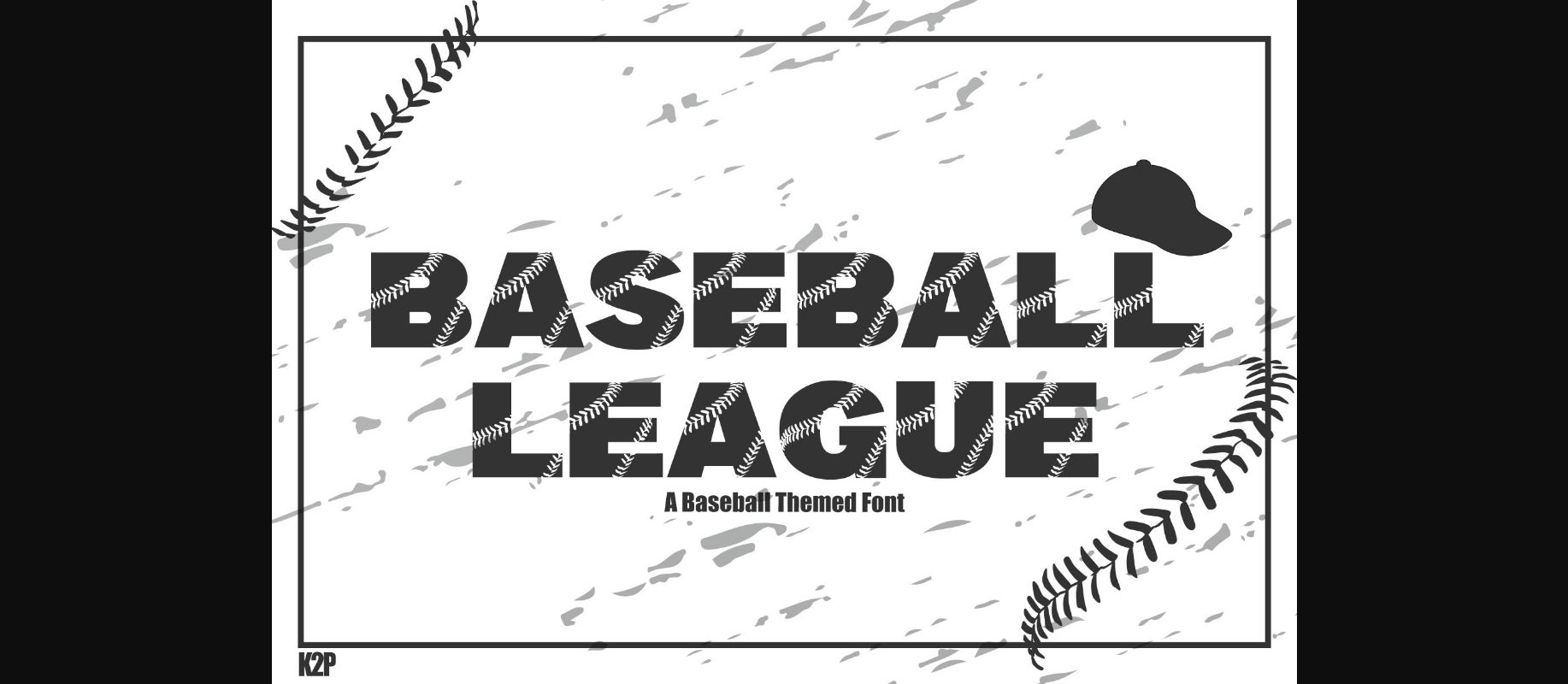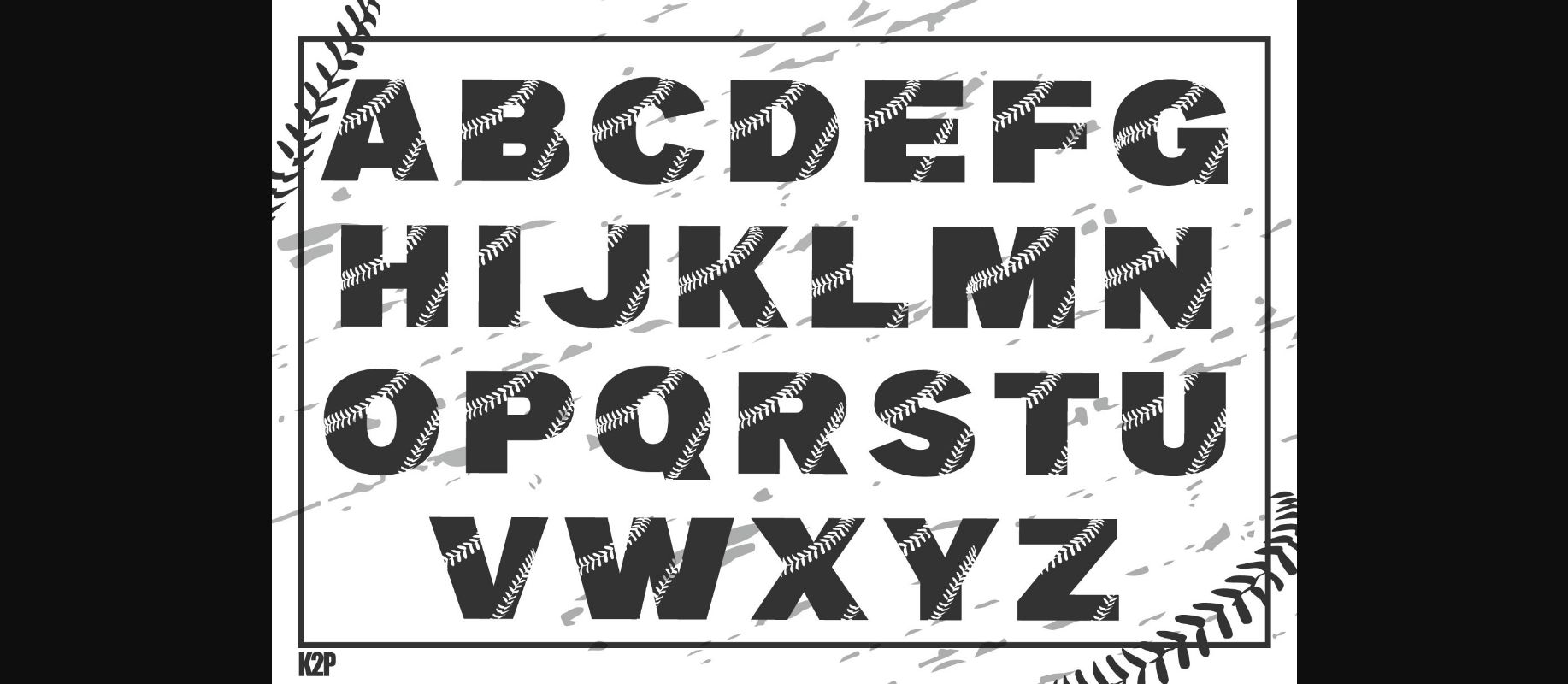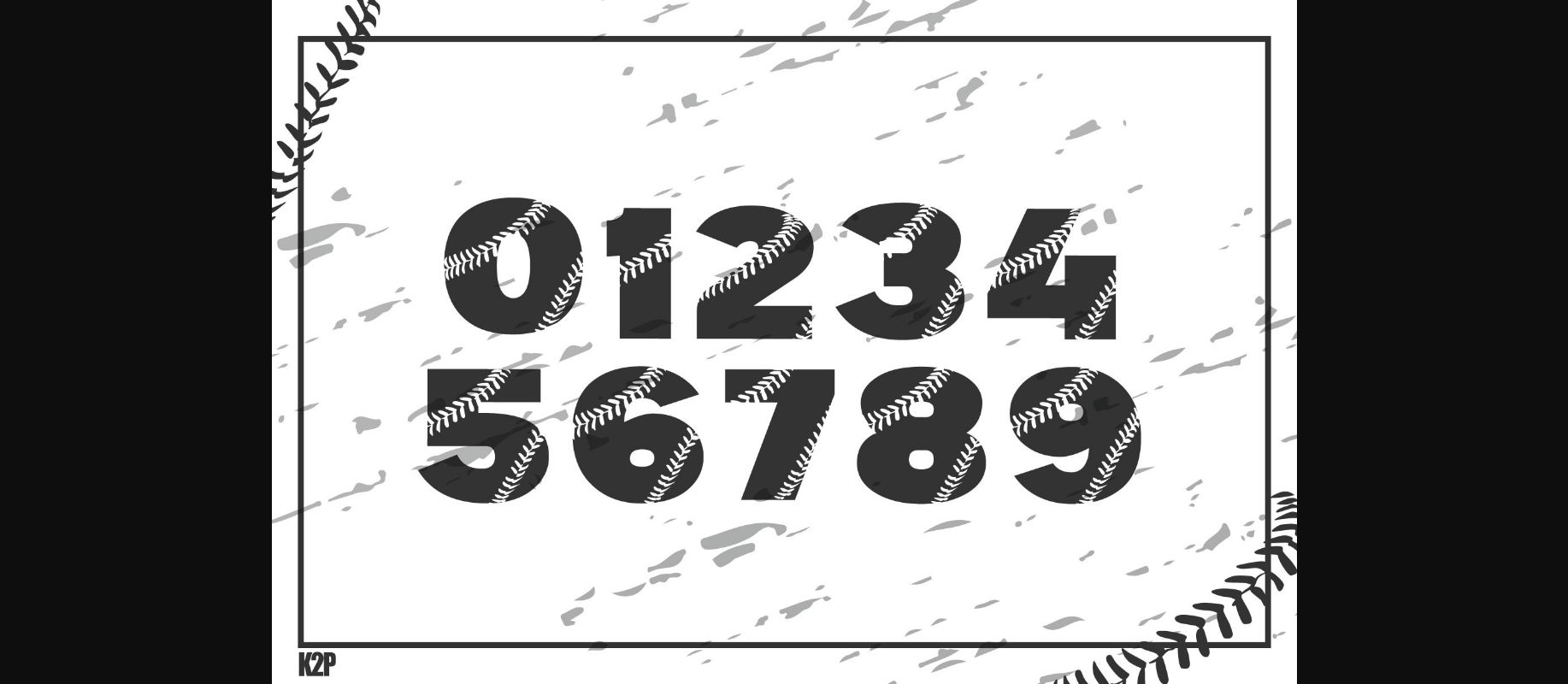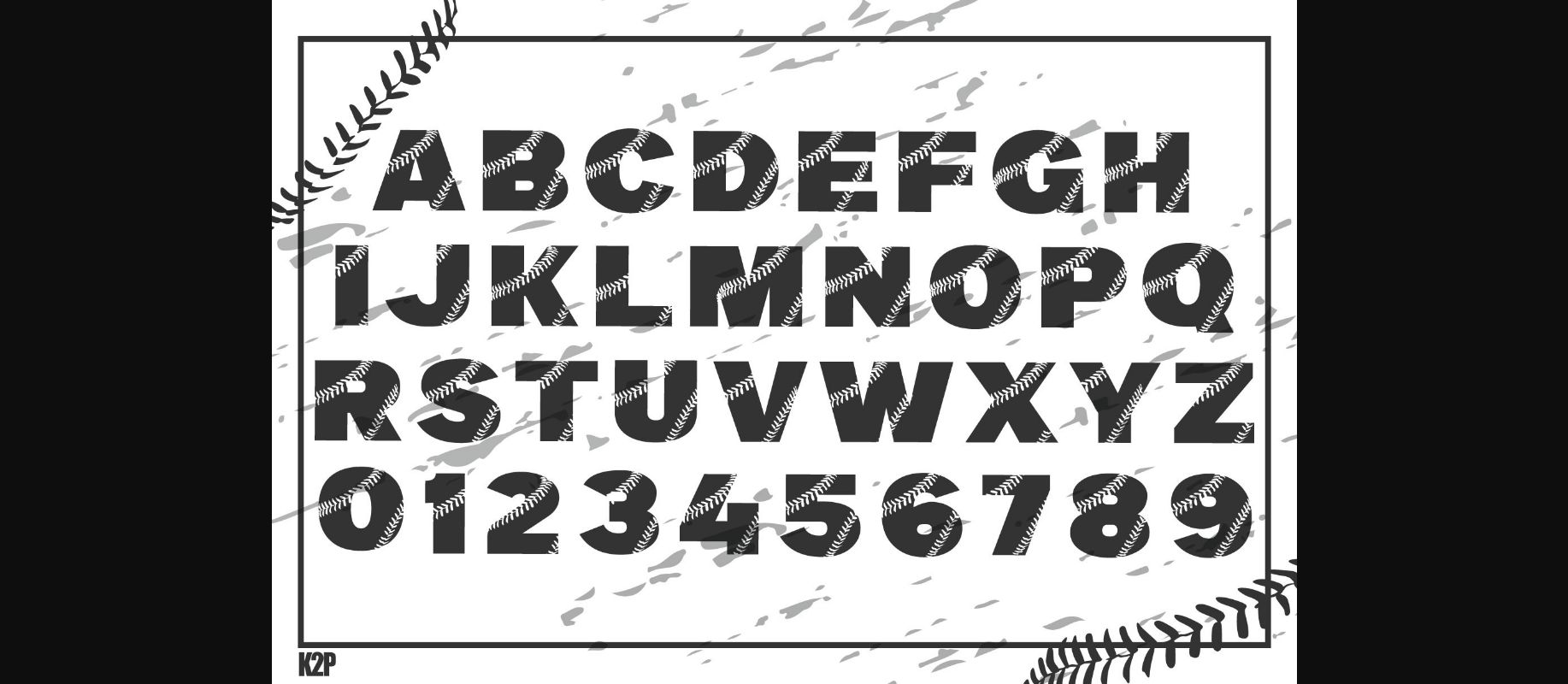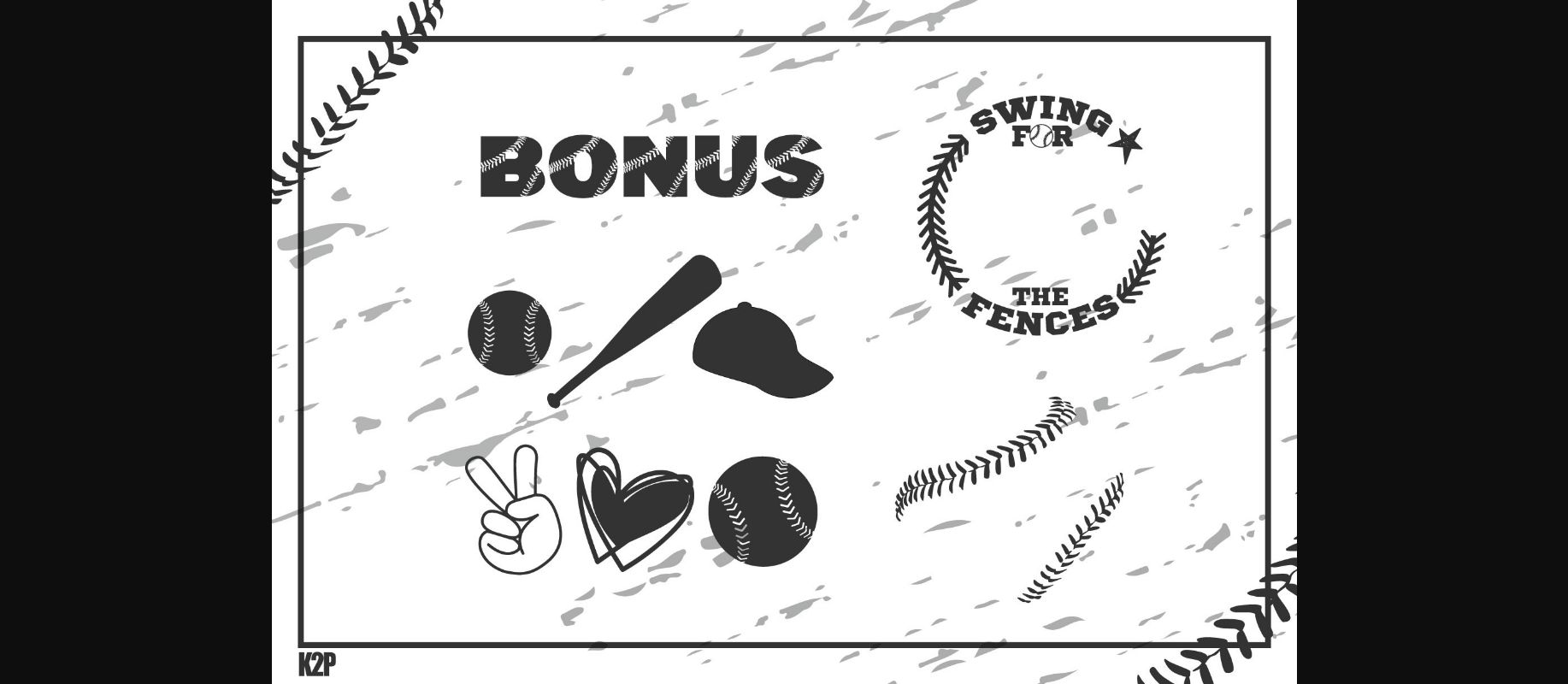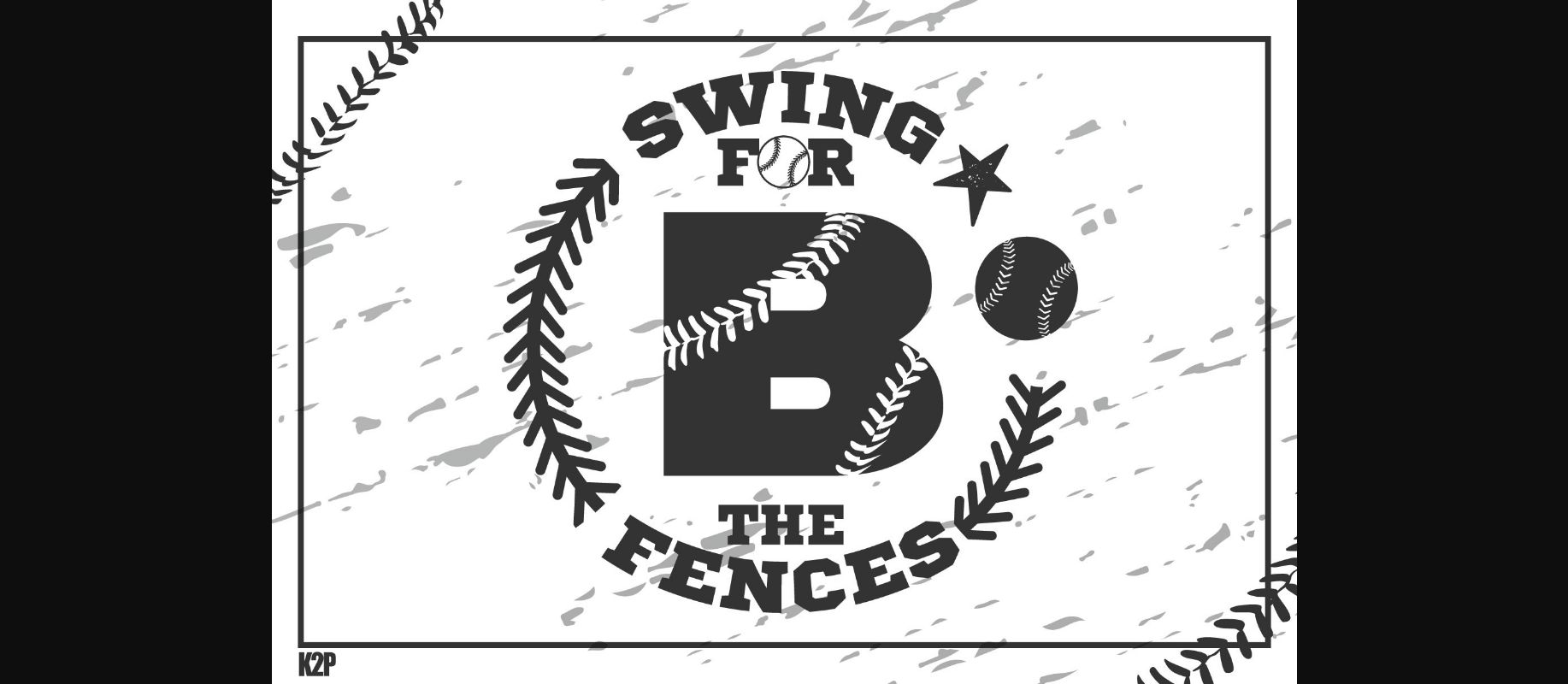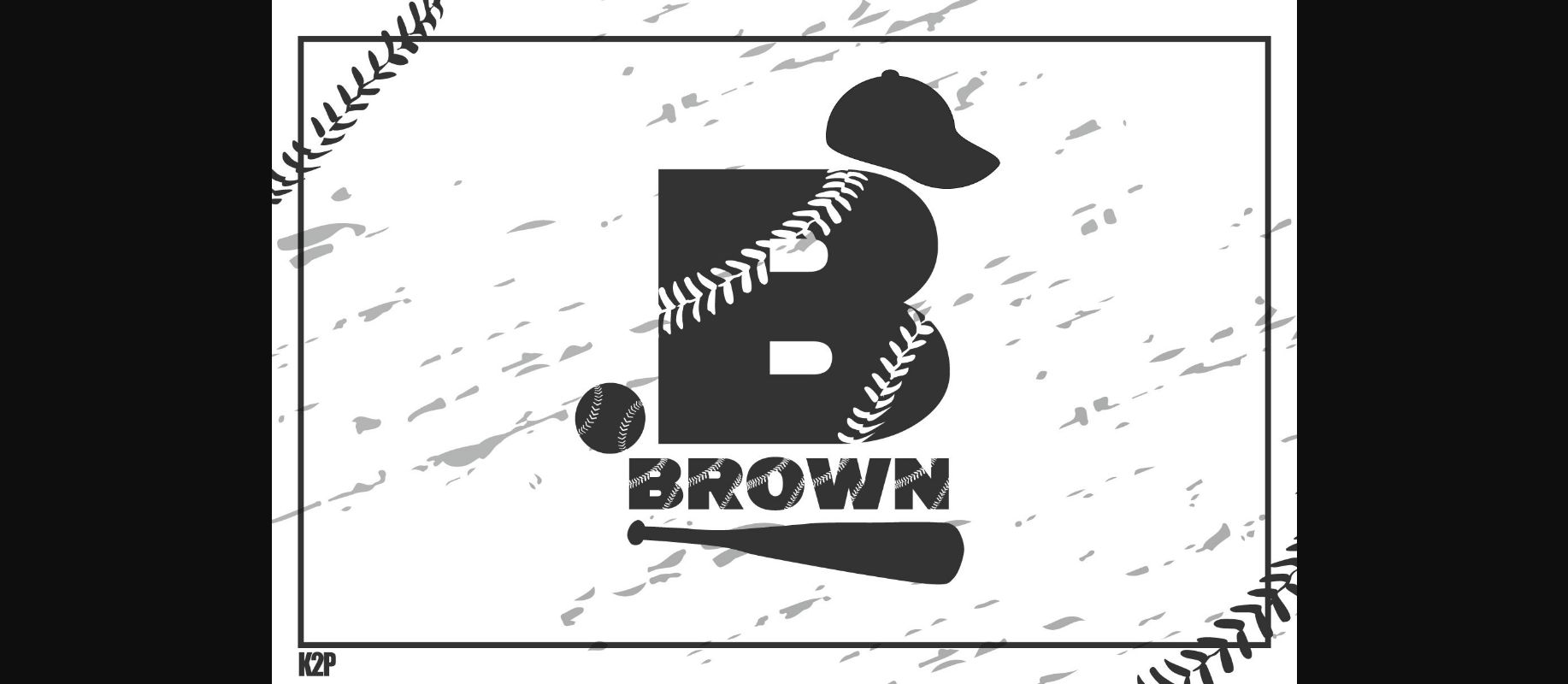
HomeDecorative FontsBaseball League Font Decorative Fonts Baseball League Font FacebookTwitterPinterestWhatsApp 1 of 9 ... Baseball League Font Poster 2... Baseball League Font Poster 3... Baseball League Font Poster 4... Baseball League Font Poster 5... Baseball League Font Poster 6... Baseball League Font Poster 7... Baseball League Font Poster 8... Baseball League Font Poster 9... About Baseball League Font Baseball League is a cool, bold, and inspired decorative font. Add it to your baseball-related designs and you will be astounded by the results. DOWNLOAD NOW 154 0 People also explored Basket Font Alvenda Font Butterfly Font Winter Snow Font Elyssum Font Present Cheer Up Font Erica Monroe Duo Font Fox Bestie Pashalovia Extra Bold Font Sweet Venom Font Hypermart Font Rosengarten TagsBaseball League Font Previous articleLike Zebra FontNext articleScary Font LEAVE A REPLY Cancel reply Comment: Please enter your comment! Name:* Please enter your name here Email:* You have entered an incorrect email address! Please enter your email address here Website: Save my name, email, and website in this browser for the next time I comment. Unlock Endless Creativity with the FREE September Clipart Huge Bundle (Valued at $700!) Personal Use Free Konexio Personal Use Free Read more Jilliant Personal Use Free Read more Berry Personal Use Free Read more The Most Beautiful Gift Personal Use Free Read more BLOG Using Fonts in Digital Marketing: Tips to Strengthen Your Brand Identity In the realm of digital marketing, every visual element plays a crucial role in shaping a brand's identity, and fonts are no exception. The... Top 7 Google Fonts Alternatives for Faster and Privacy-Friendly Web Design (2025) The 10 Best Handwriting Fonts to Add Personality to Your Designs Where to Buy American Fonts Online in 2024